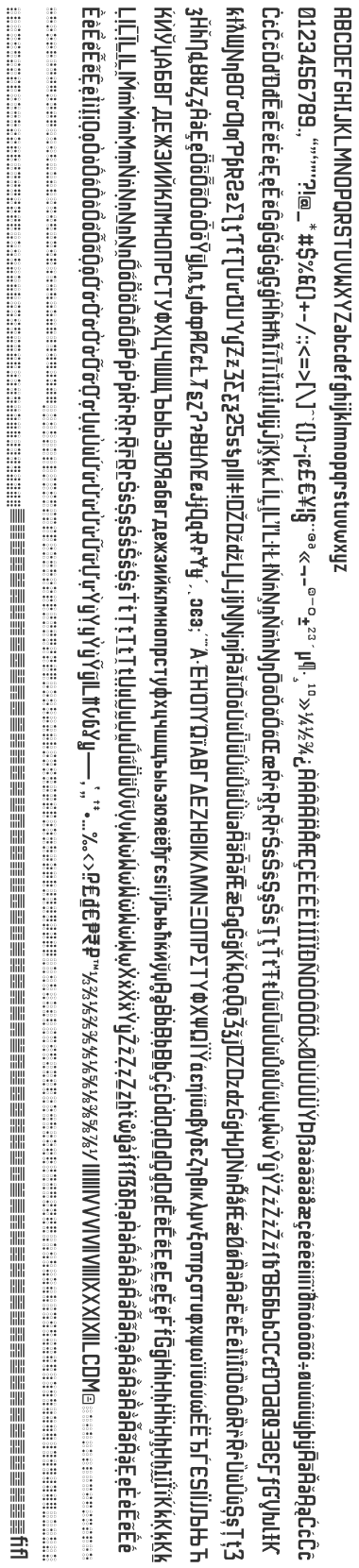
really like it. and my wow for your endurance.
for me a to-be TP
Congratulations! FontStruct Staff have deemed your FontStruction worthy of special mention. “Noptical 2x2” is now a Top Pick.
Check out the vast character set of Nooptical 2x2. Now a top pick!
This is really cool! Thanks! (So many characters. I don't even know how to type some of those)! :P
Ugly? I don't think so. My only advice is this, and I do mention this a lot to people: A lot of the images that accompany the unicode characters are incorrect—when they added them they misnamed them; an example is Latin Oi (Latin extended-B), which is actually Gh. The characters listed with the cedilla are another example—not S and T, mind you, but, G, K, L, N, and R. These should have commas, like your lowercase g does. —Love the interrobang. Also, there are a ton of deprecated characters that people tend to add, like the number glyphs in Latin Extended-B. The uppercase versions of the swash s and z, by the way, are in Latin Extended-C. I rather like this overall, except for my one pet pieve: I dislike the capital J being the same height as the rest of the capitals. The original J is literally an I with a palatal hook (tail) added to it. Whoever decided to design it with a baseline hook . . . ? >_< Lol. Anyway, good font. :)
The Ruble sign looks like "₽" and its unicode is U+20BD.
It doesn't look like the actual Ruble sign in this font but it looks like the Cyrillic letter Р (R in the English Alphabet) with a line through it.
So why did you put "the not yet Unicode encoded Ruble sign" in your notes? It is Unicode encoded.